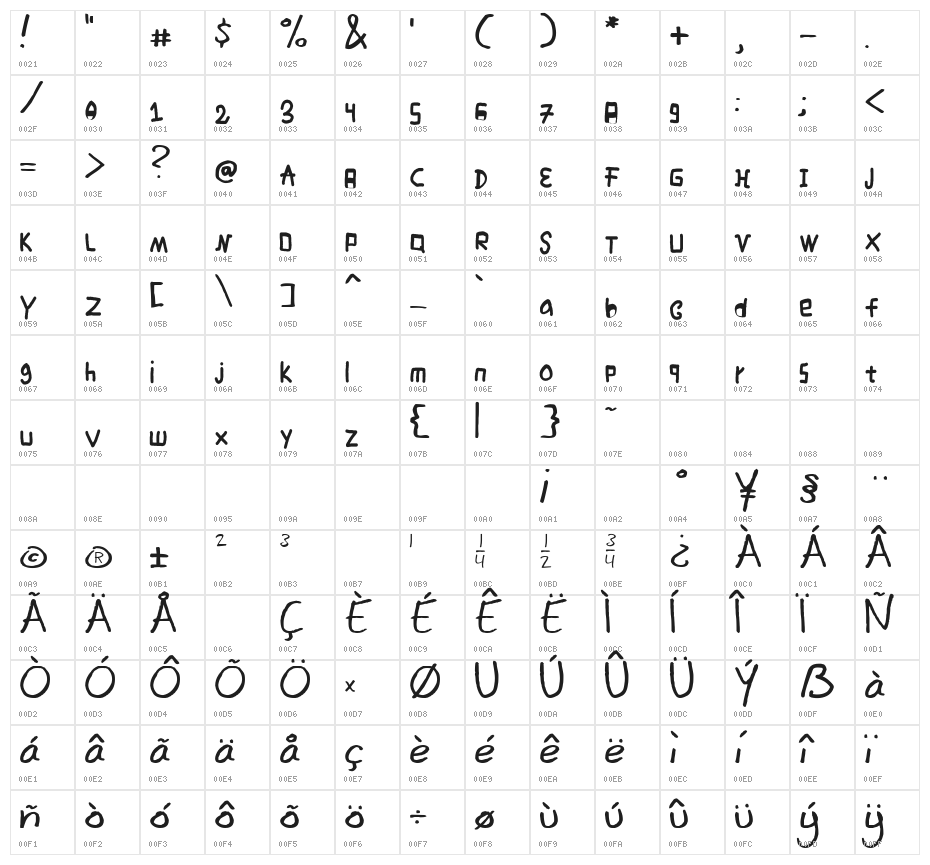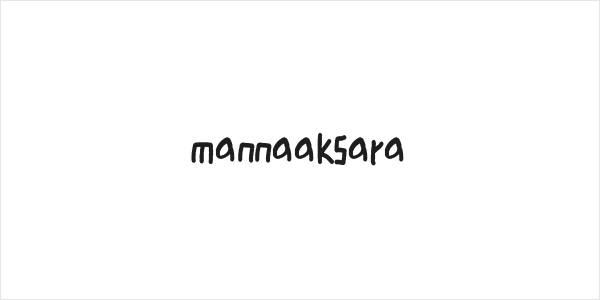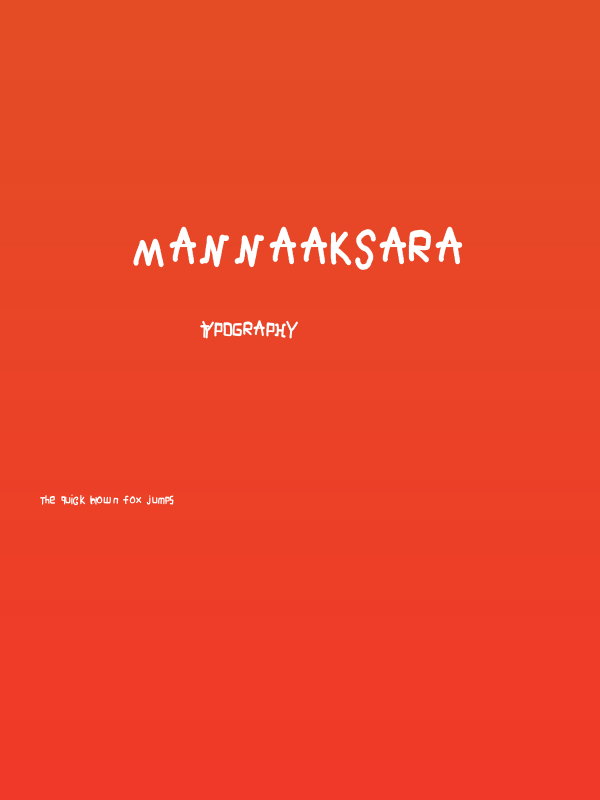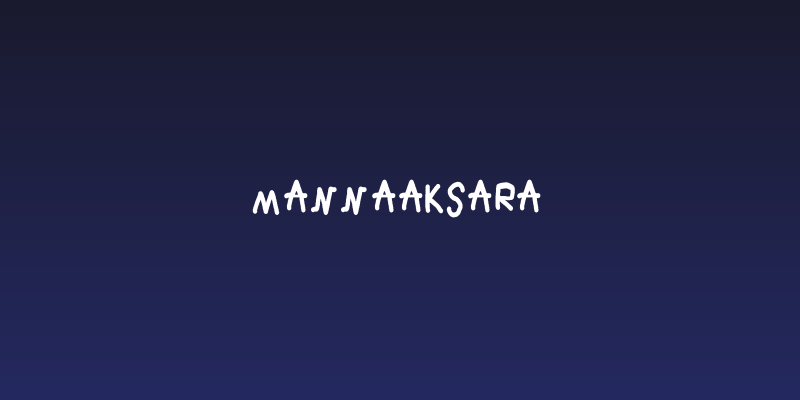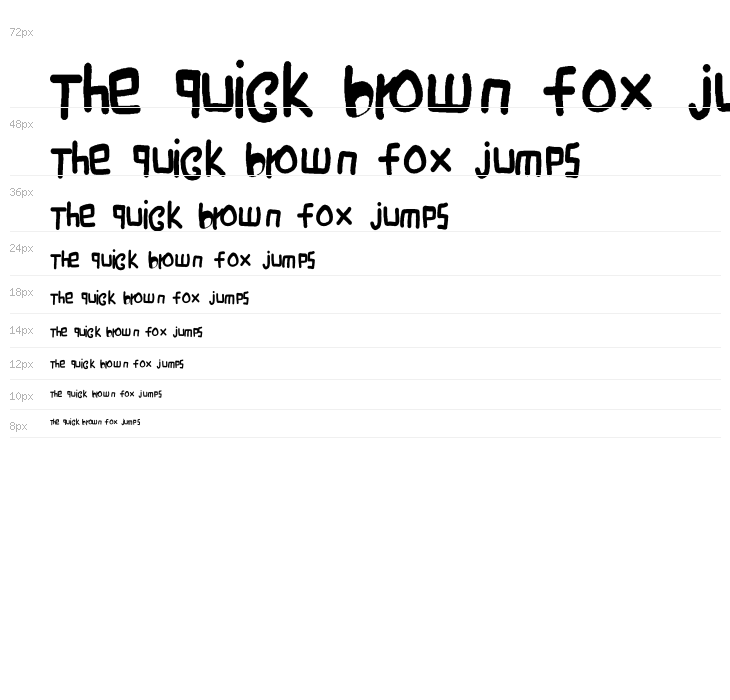
mannaaksara Font
mannaaksara Description
This font features a playful and informal style, characterized by its hand-drawn appearance. The letters have a whimsical, uneven quality, with varying stroke thicknesses that give it a lively and dynamic feel. The uppercase and lowercase letters maintain a consistent style, with rounded edges and a slightly irregular baseline, enhancing its casual aesthetic. The numerals and special characters follow the same playful design, making it suitable for creative and informal projects. The font's unique character is perfect for adding a personal touch to any design.
| Proposed Projects | Ideal for children's books, greeting cards, playful branding, and creative posters. |